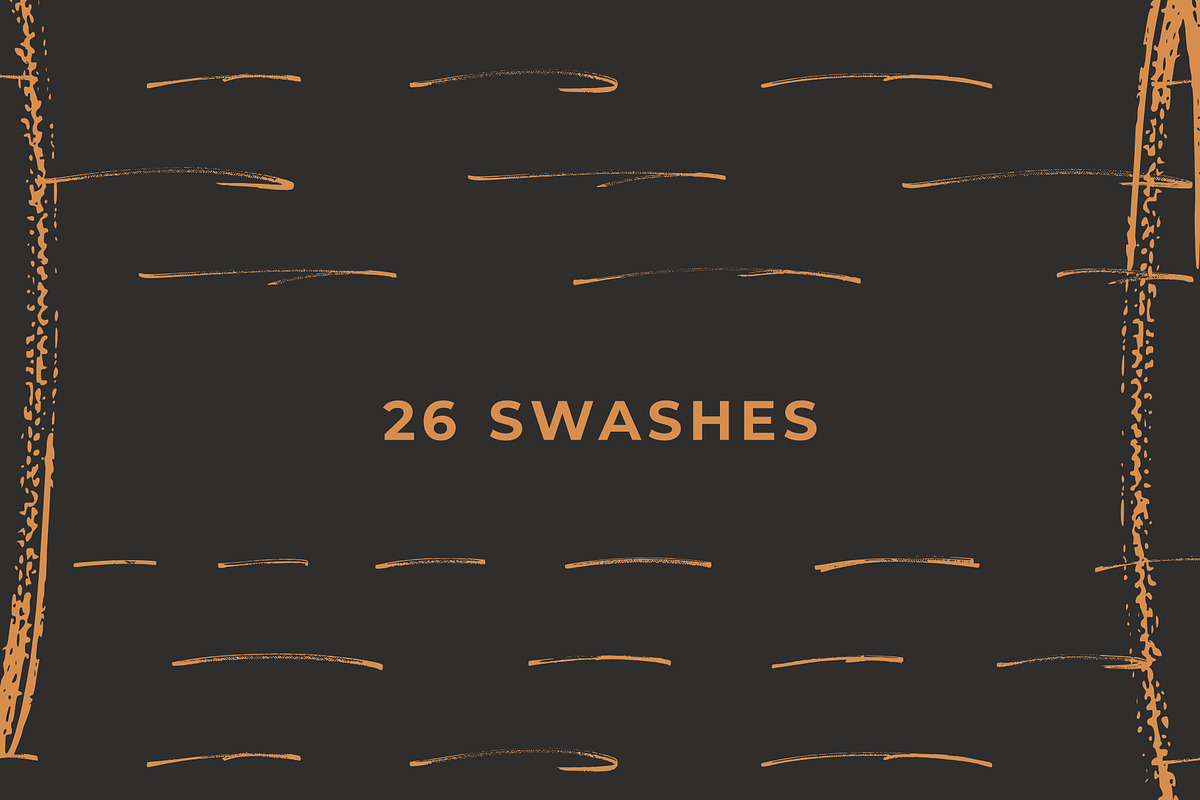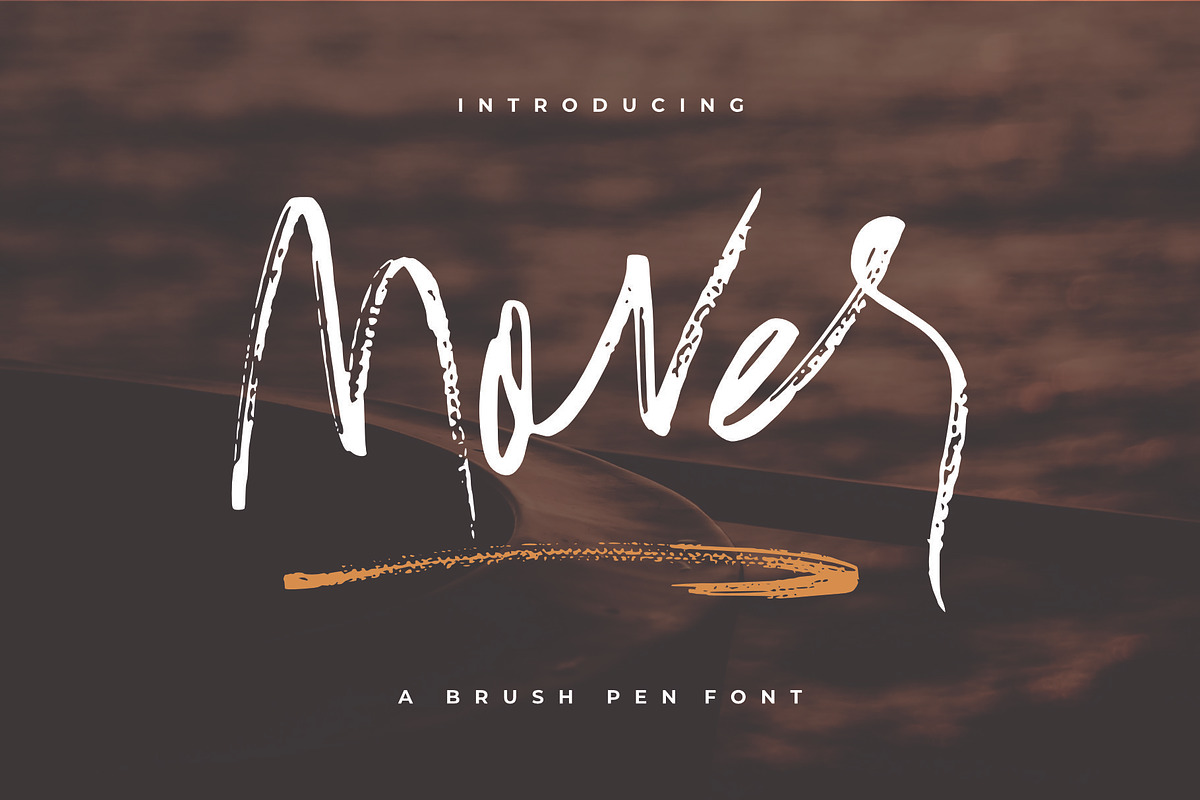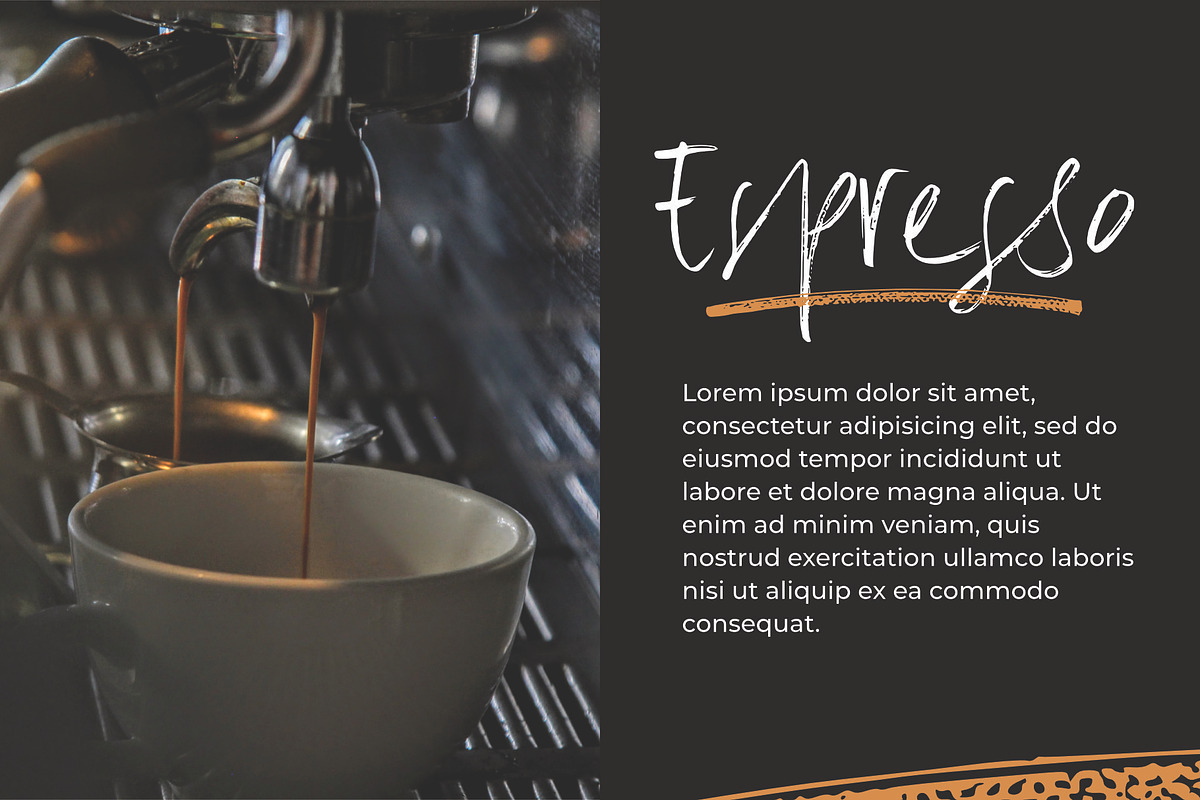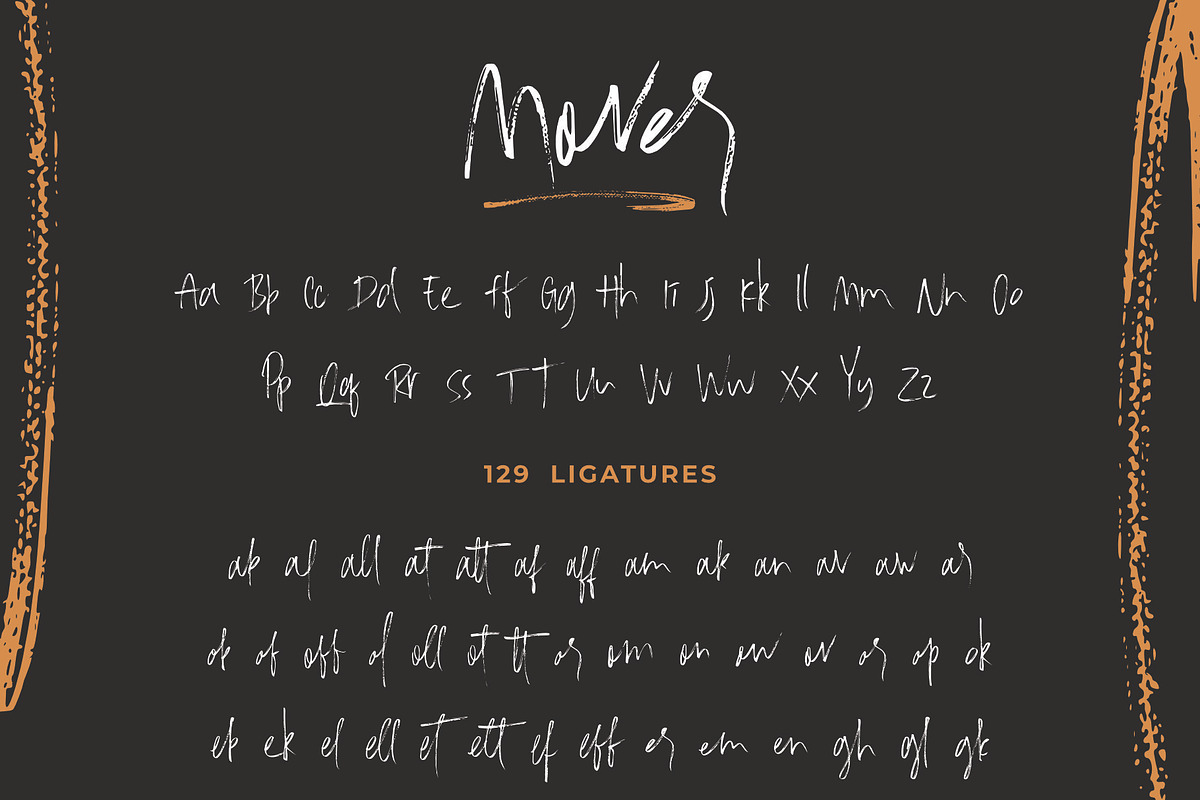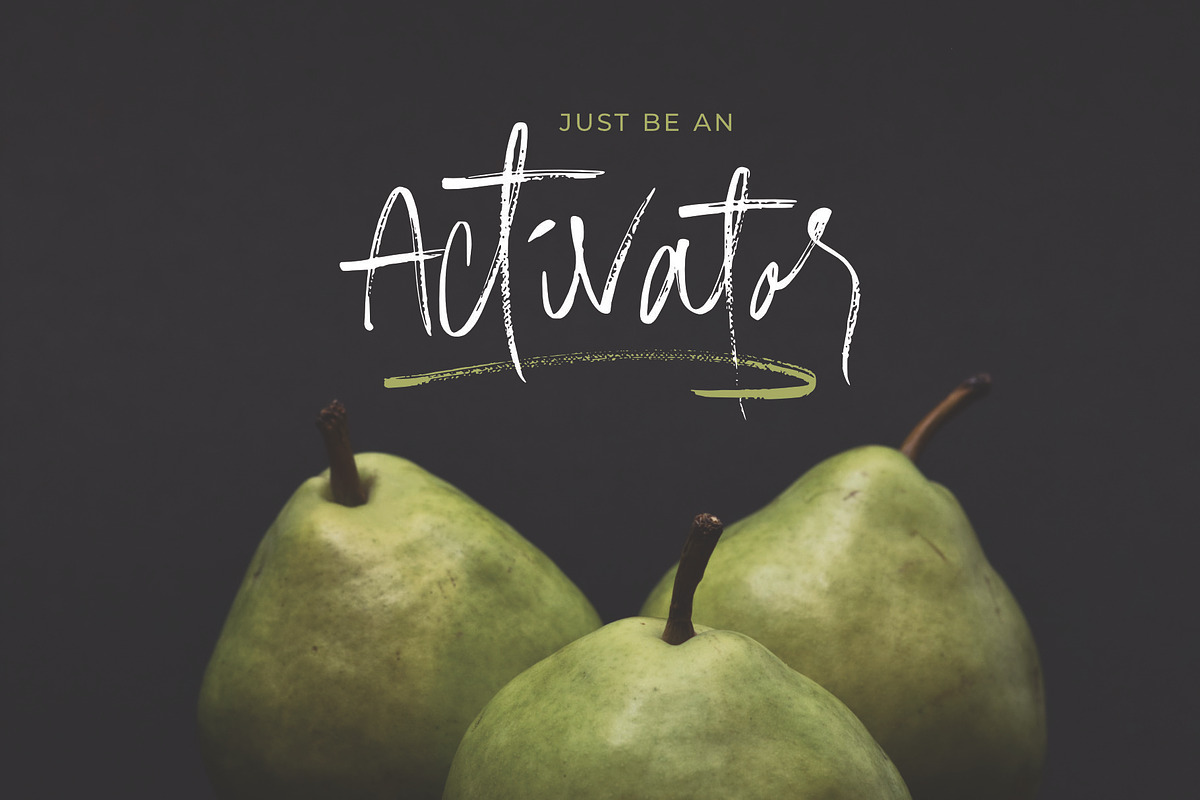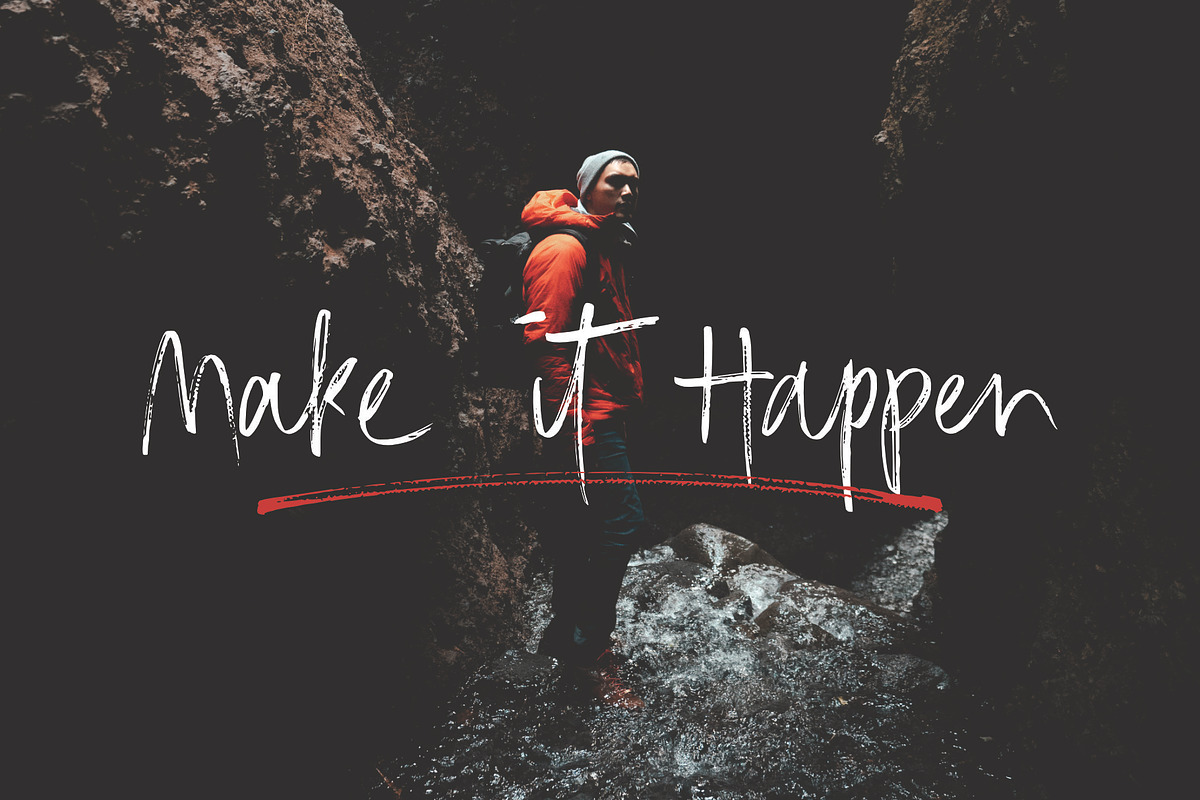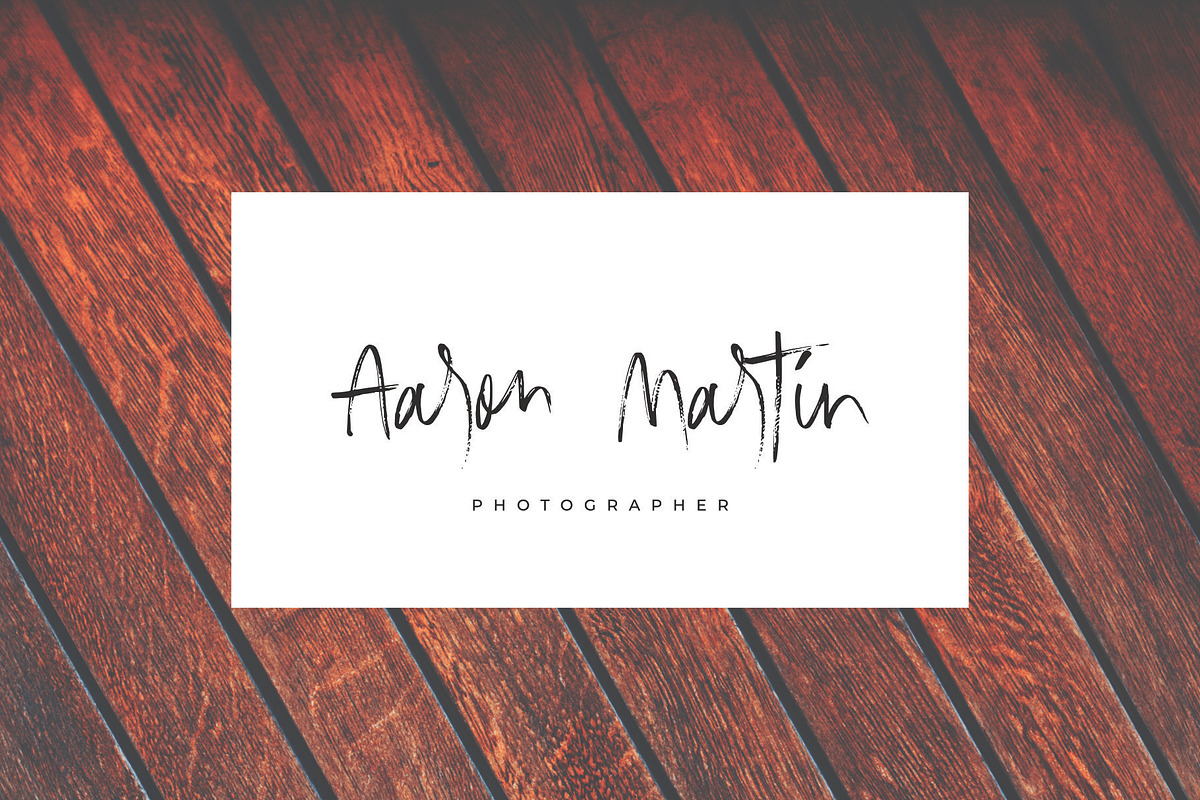
Mover // A Brush Pen Font
Mover is a handwritten, brush pen and texture font that carefully crafted and manually designed directly on paper.
Mover is really great for any creative project like logo design, product adveritising, movie tittle, book cover design, app and many more.